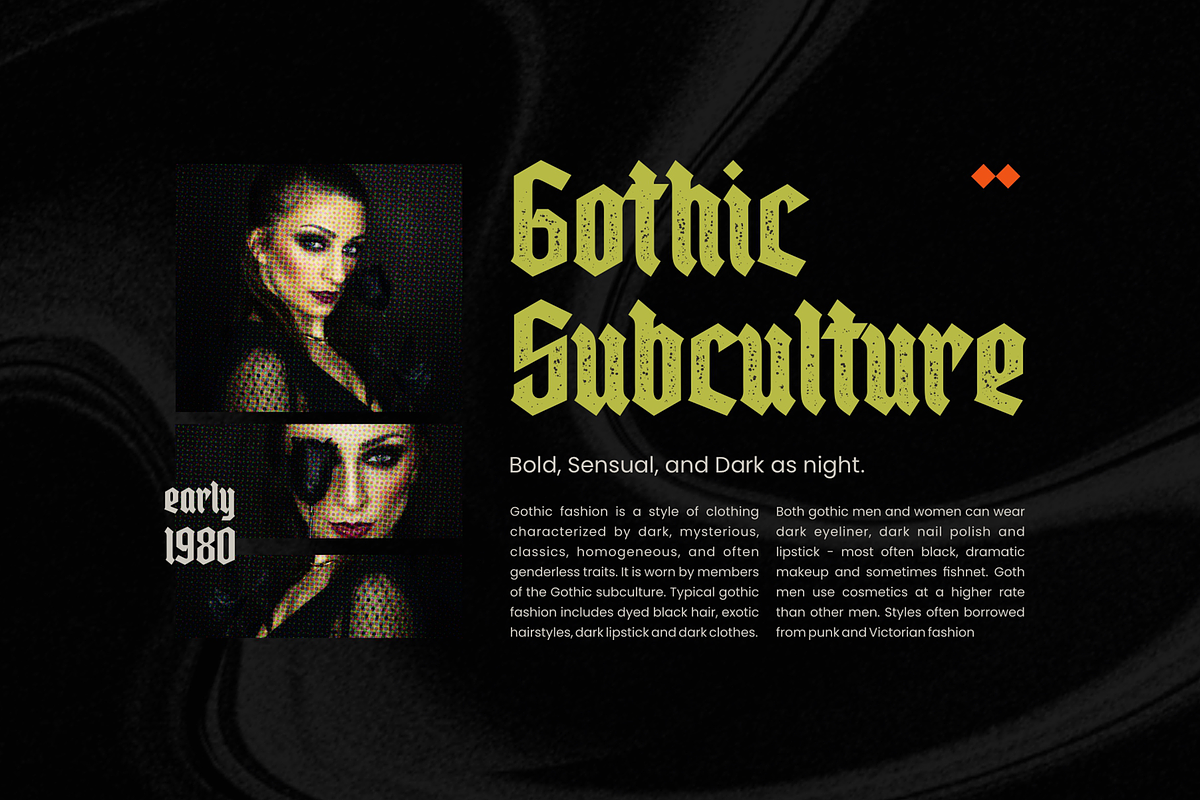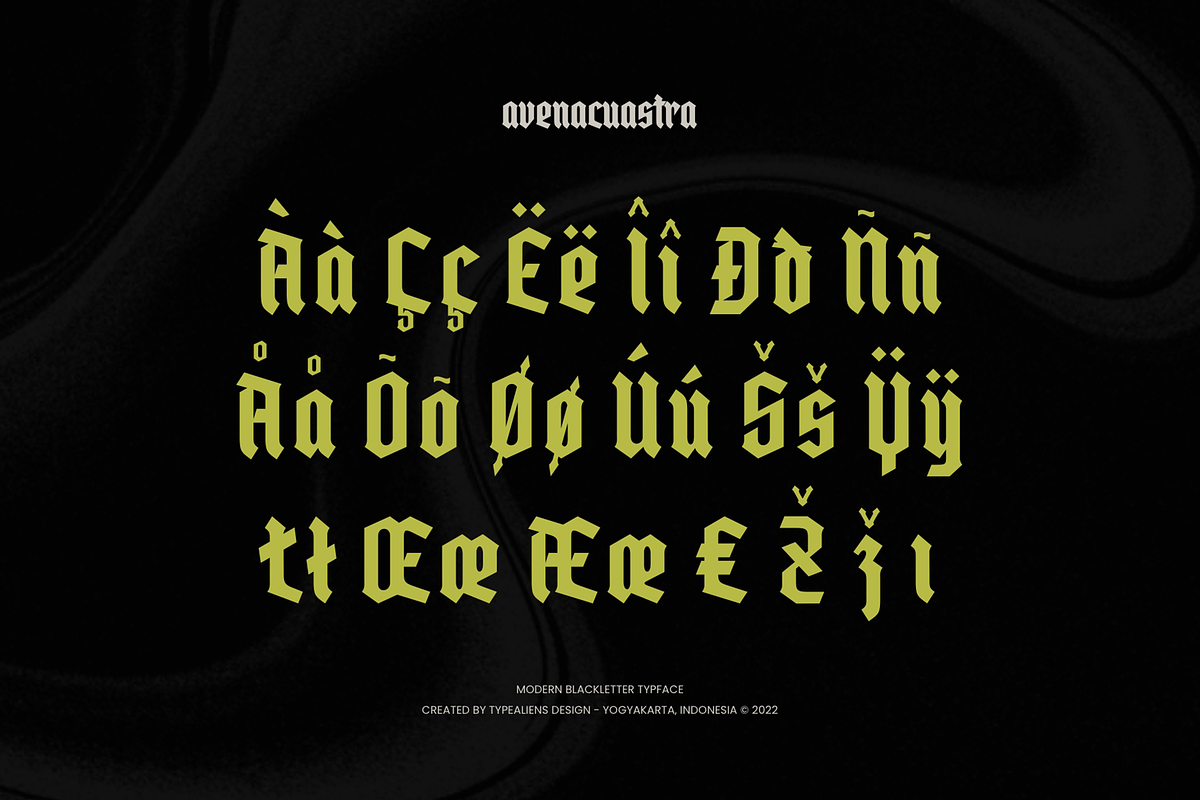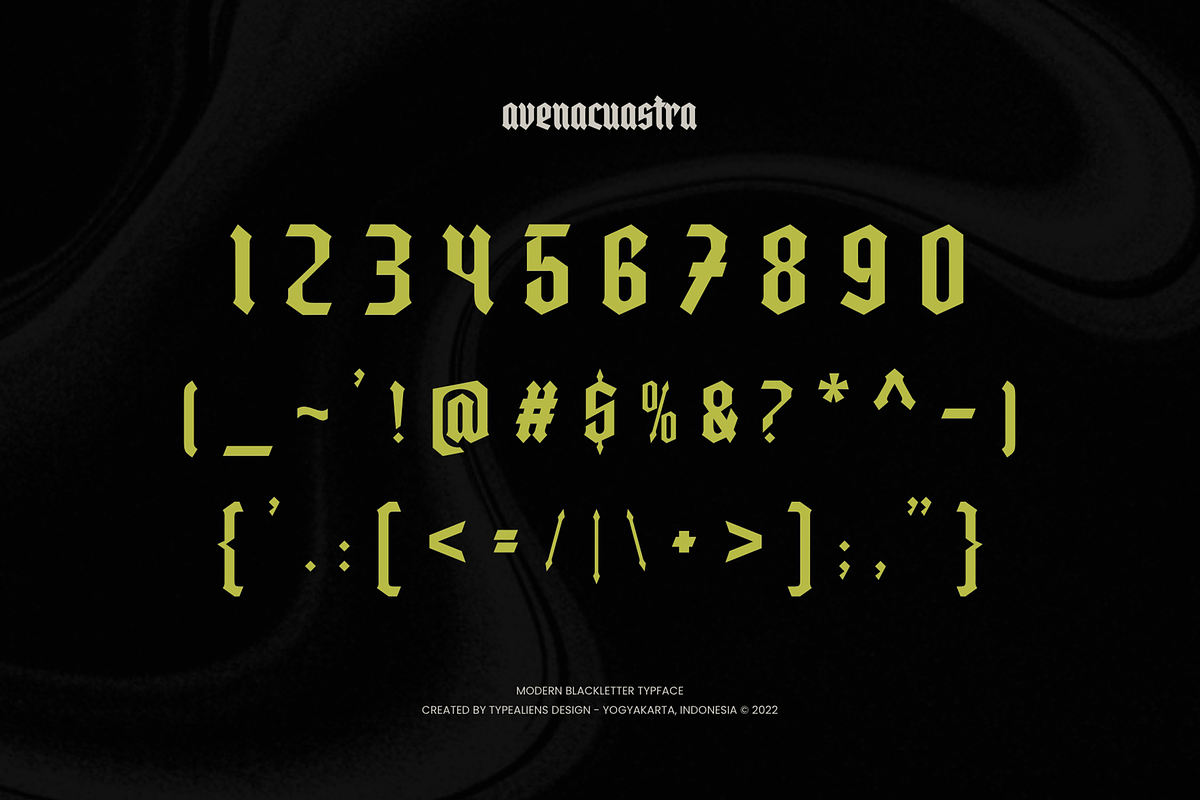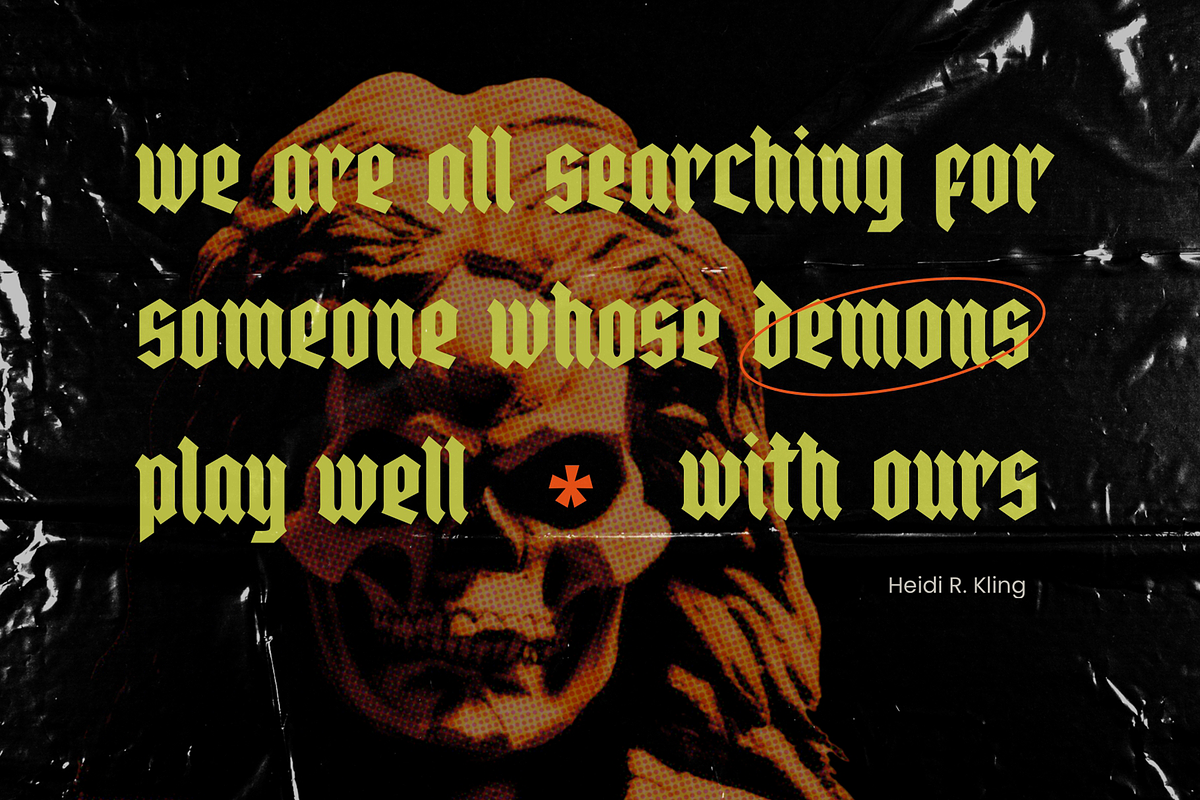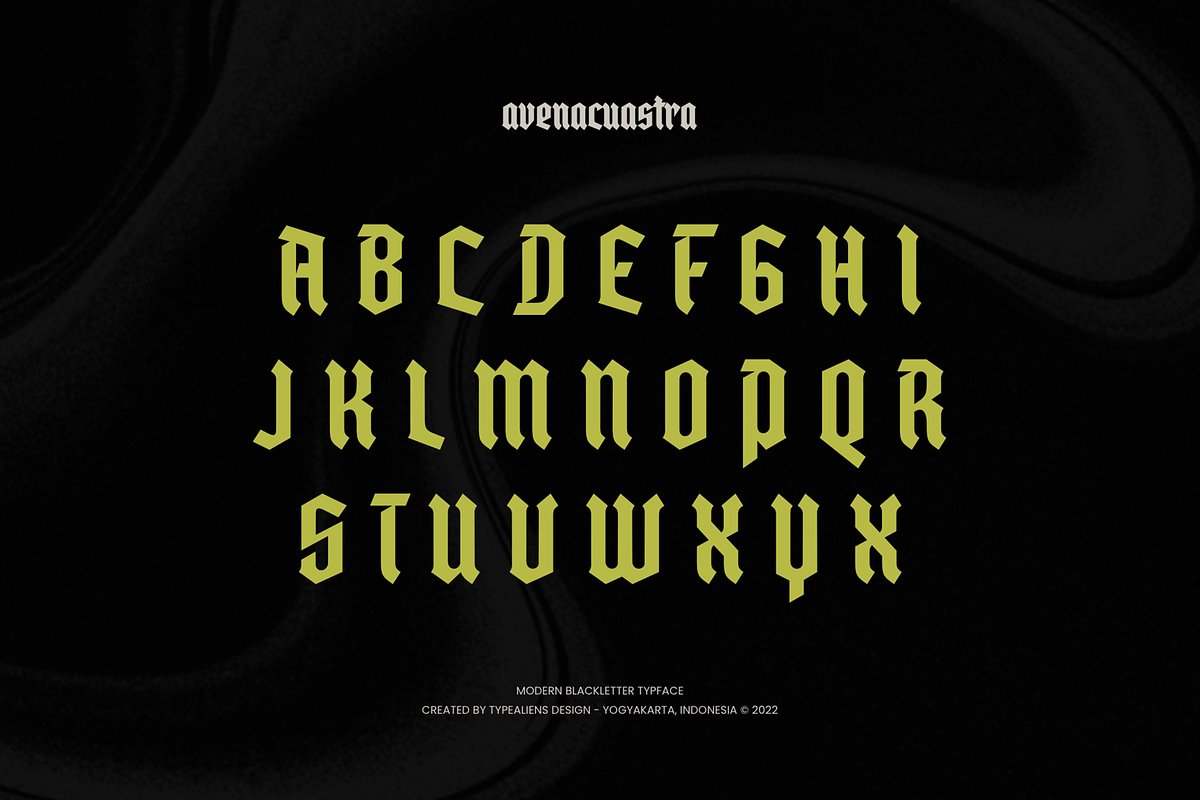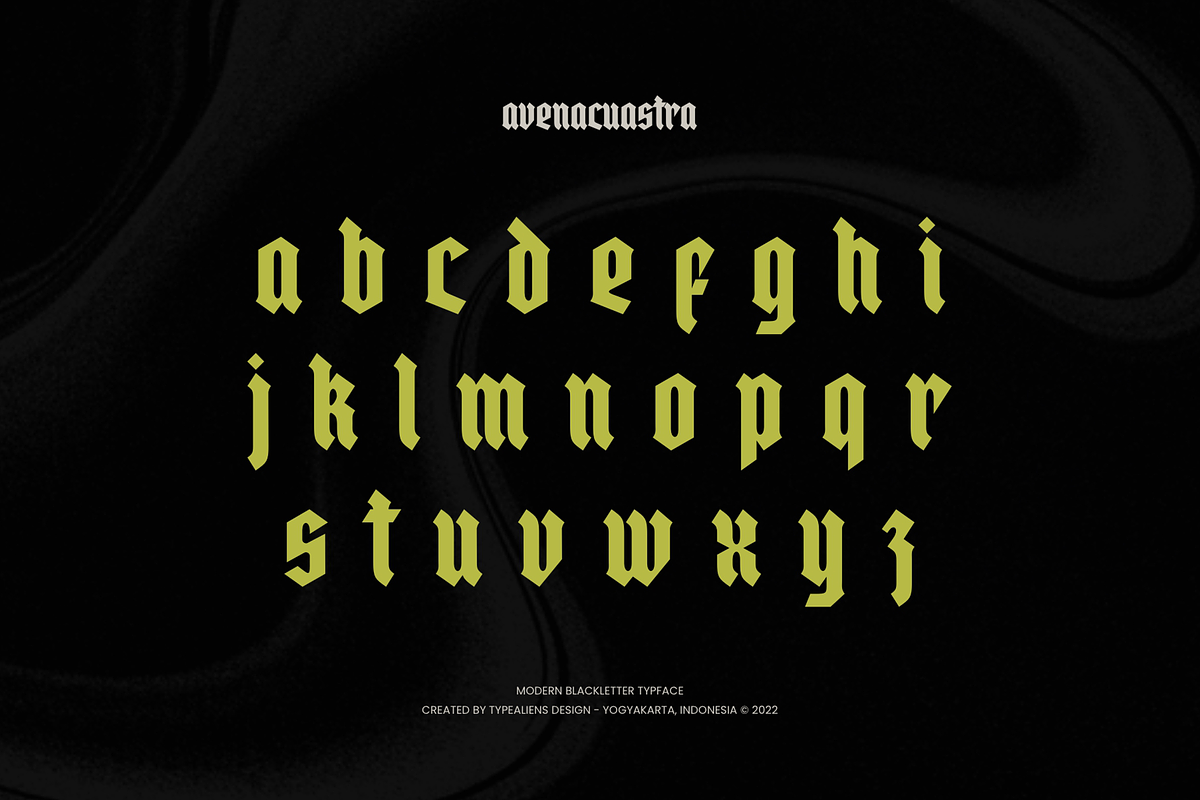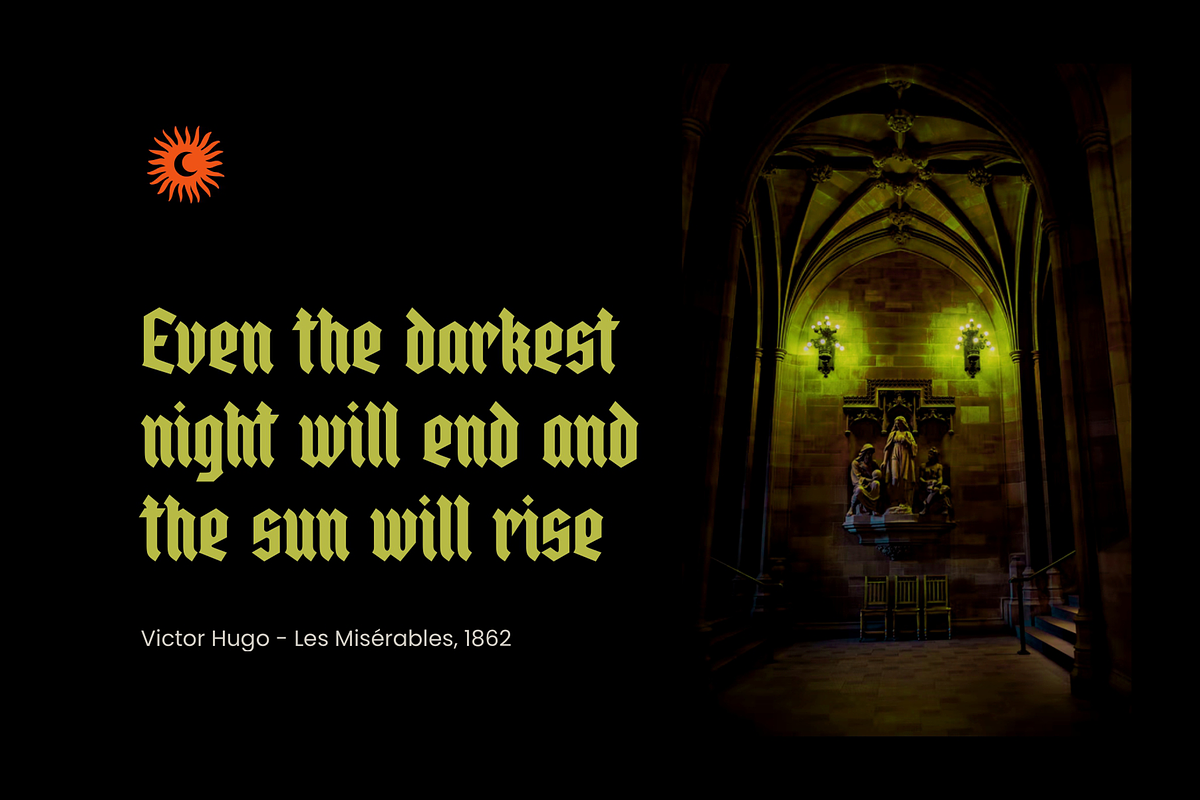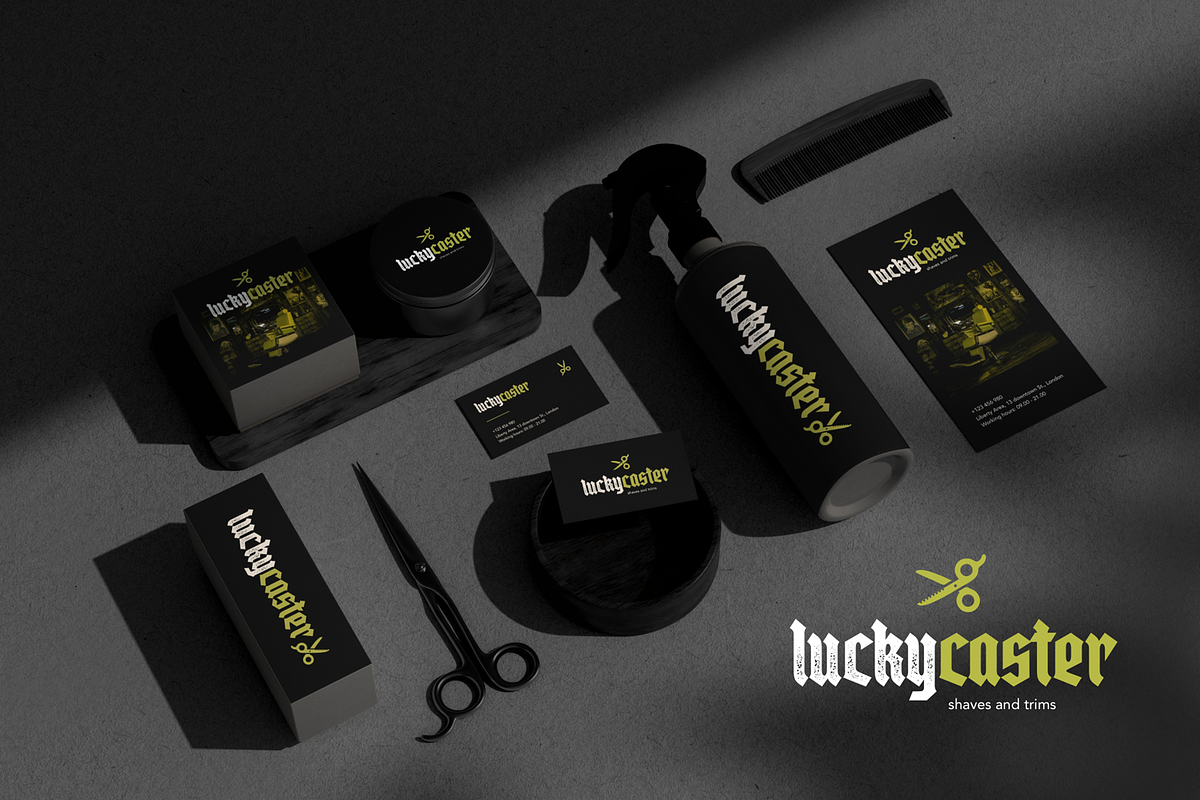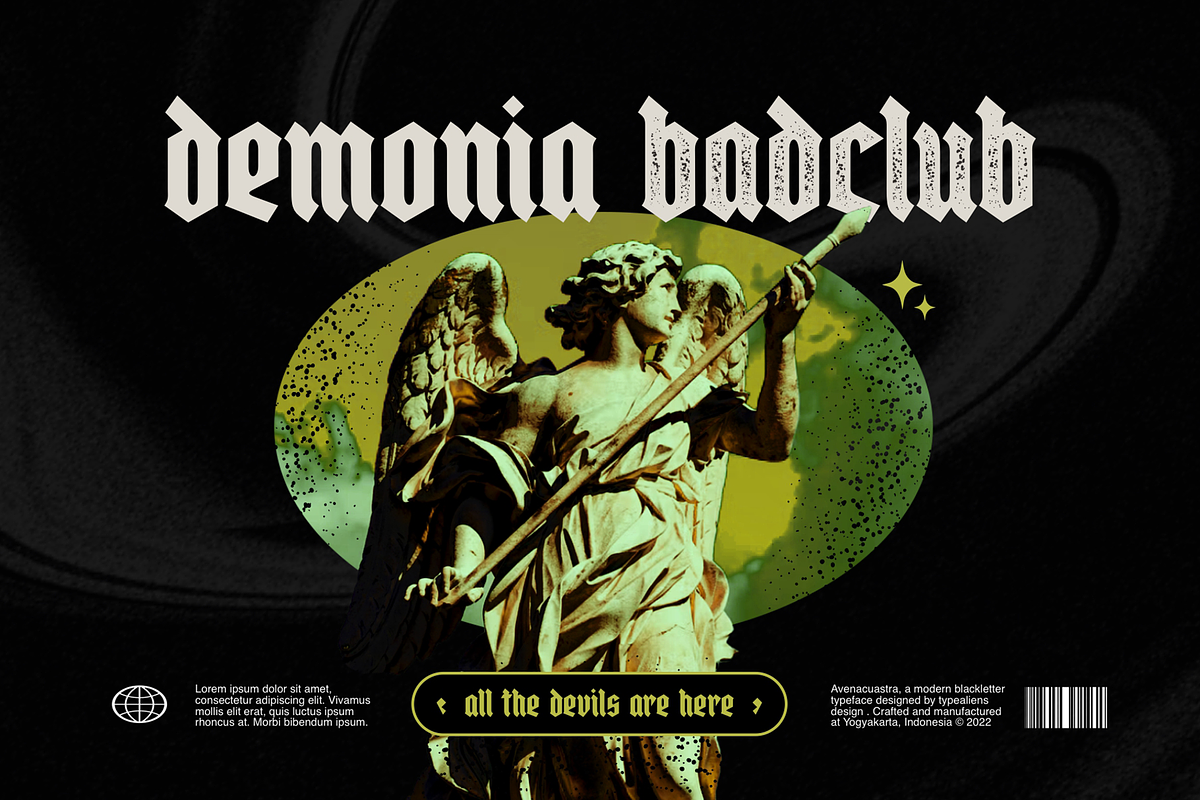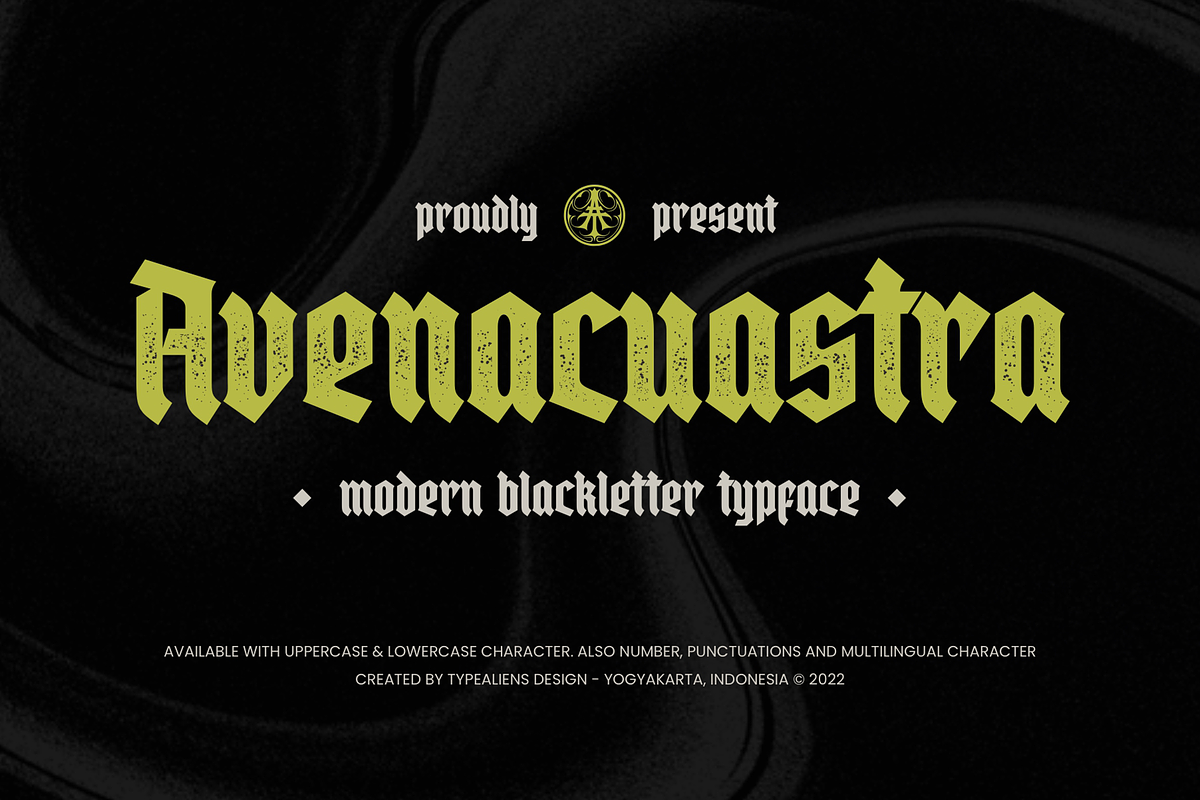
Avenacuastra
AVENACUASTRA
Avenacuastra is a fairly simple Blackletter font, not too many strokes or ornaments. The font is clean enough so that it has better legibility than other Blackletters. Even so, this font still has a vintage style so it is suitable for creating classic or retro designs, such as for liquor branding, studio tattoos or classic motorcycles.